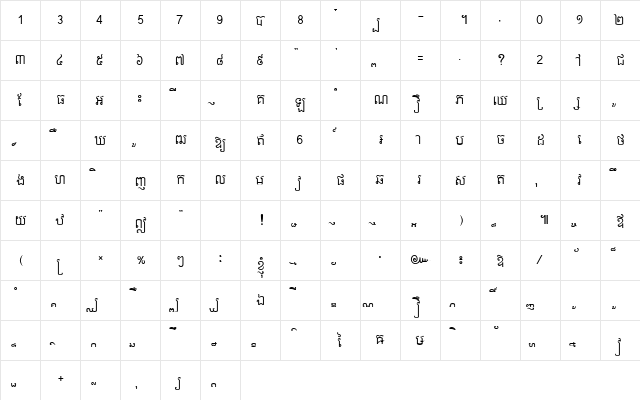
Khmer Mondulkiri L Regular
| Designer | D. Kanjahn |
Design Context for Khmer Mondulkiri L Typeface
Khmer Mondulkiri L takes a measured approach to typography — its balanced proportions and neutral character make it a reliable workhorse for both digital and print work.